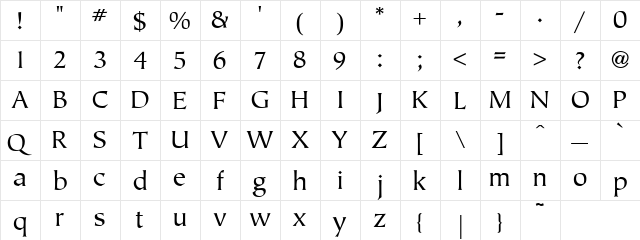
Tipti Regular Font Preview
Tipti Regular
Design Context for Tipti Typeface
Tipti is a composed and adaptable typeface that performs quietly and consistently across a wide range of design contexts.